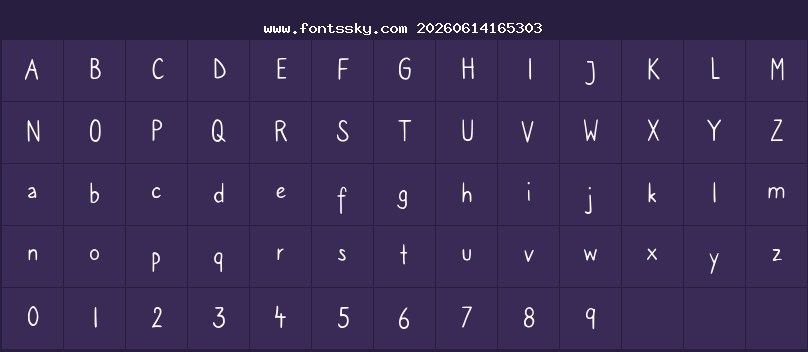
Caroni Preview
• Font Name: Caroni
• Full Font Name: Caroni Regular
• Designer: franzidraws.com
About Caroni.otf
Caroni.otf is a modern, elegant sans-serif font designed for ultimate readability and visual harmony. Perfect for branding, headlines, web design, and print materials.